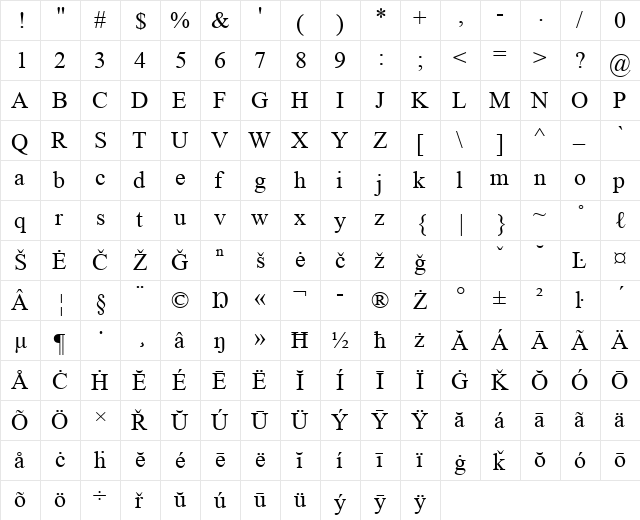
Times of Sordevi Regular
| Foundry | Monotype Typography |
| Designer | Monotype Type Drawing Office - Stanley Morison, Victor Lardent 1932 |
Design Context for Times of Sordevi Typeface
Times of Sordevi is a composed and adaptable typeface that performs quietly and consistently across a wide range of design contexts.